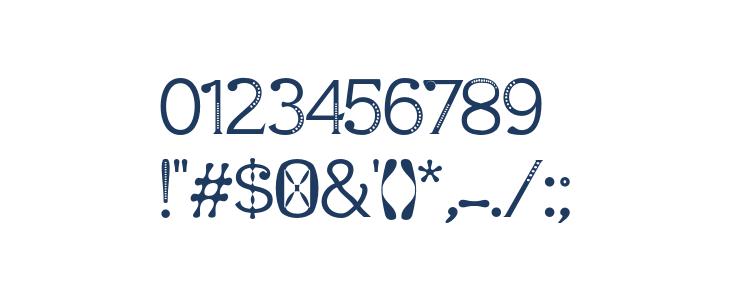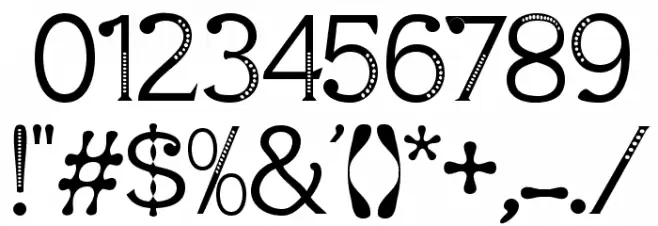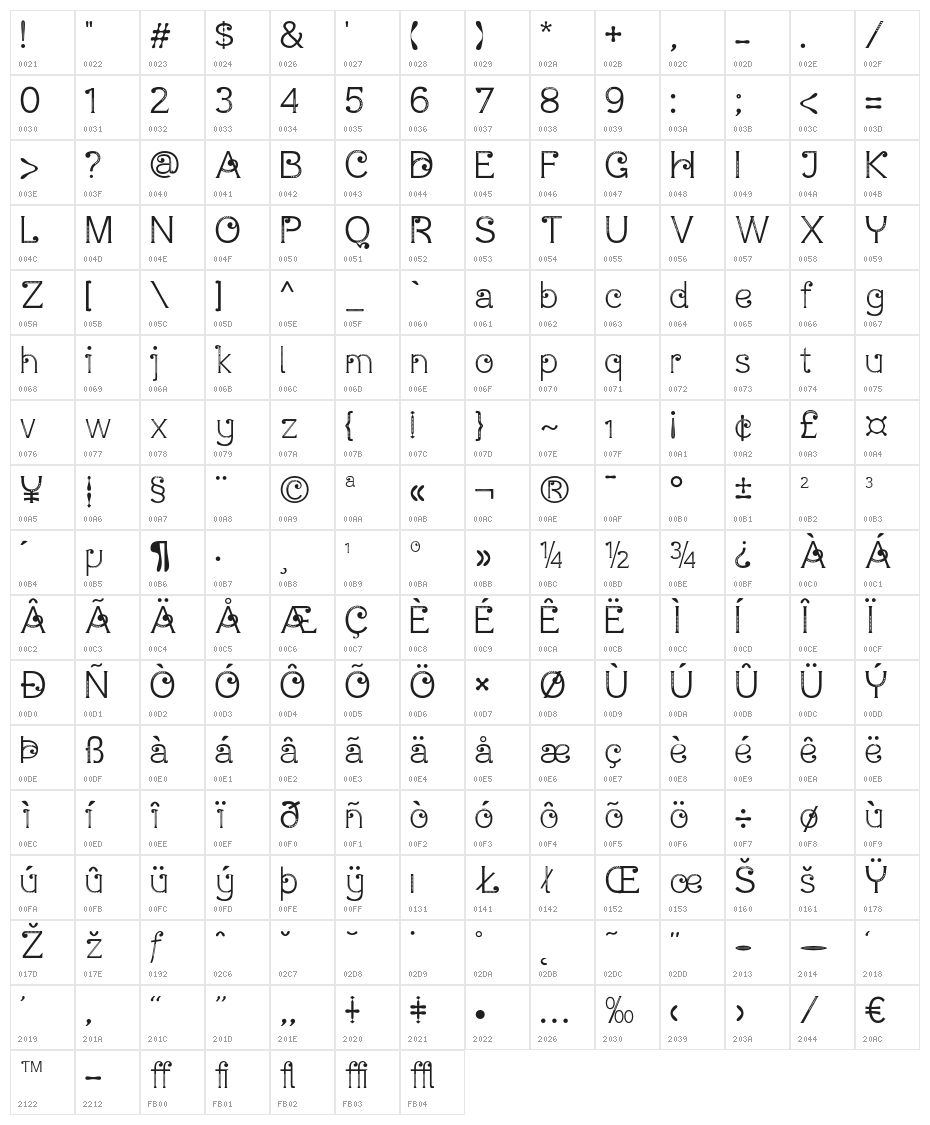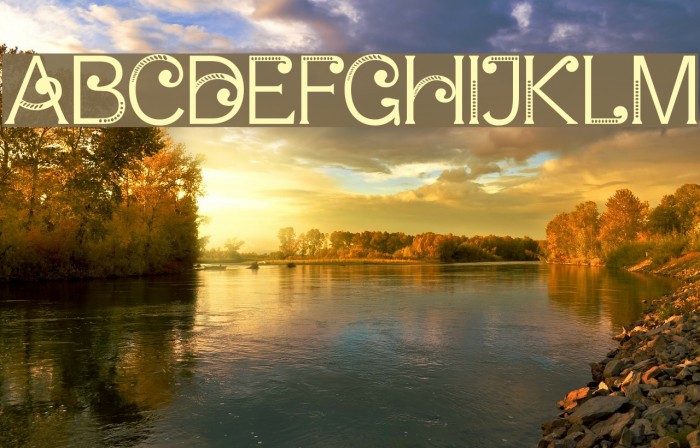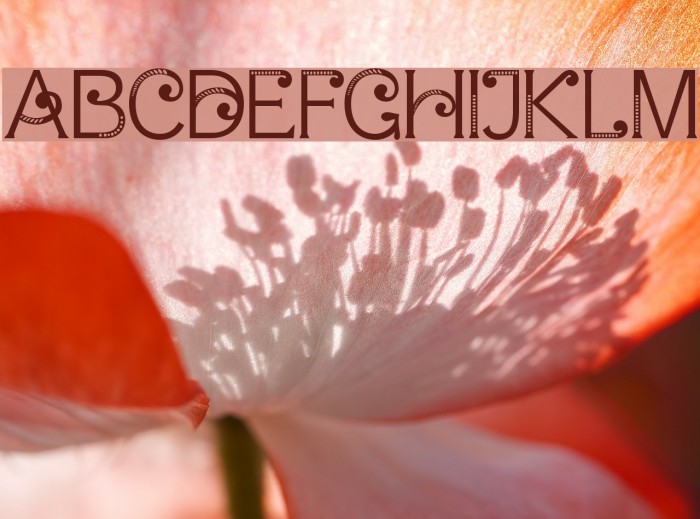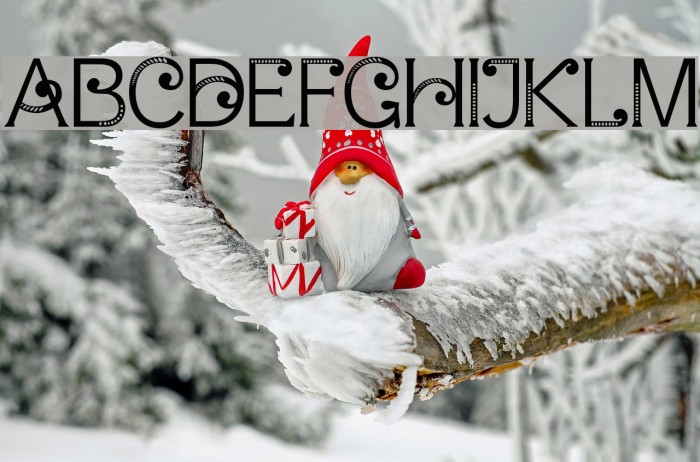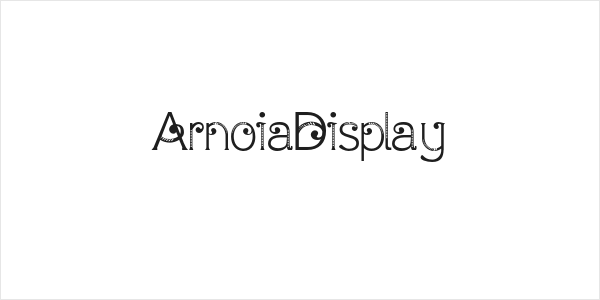
ArnoiaDisplay Font
ArnoiaDisplay Description
This font exhibits a unique and decorative style, characterized by its intricate detailing within each character. The uppercase letters feature a bold, artistic flair with dotted patterns that add a sense of whimsy and creativity. The lowercase letters maintain a consistent style, offering a playful yet sophisticated look. Numerals are designed with the same attention to detail, ensuring a cohesive appearance across all characters. The special characters are equally ornate, making them suitable for creative and eye-catching designs. This font is ideal for projects that require a touch of elegance and artistic expression.